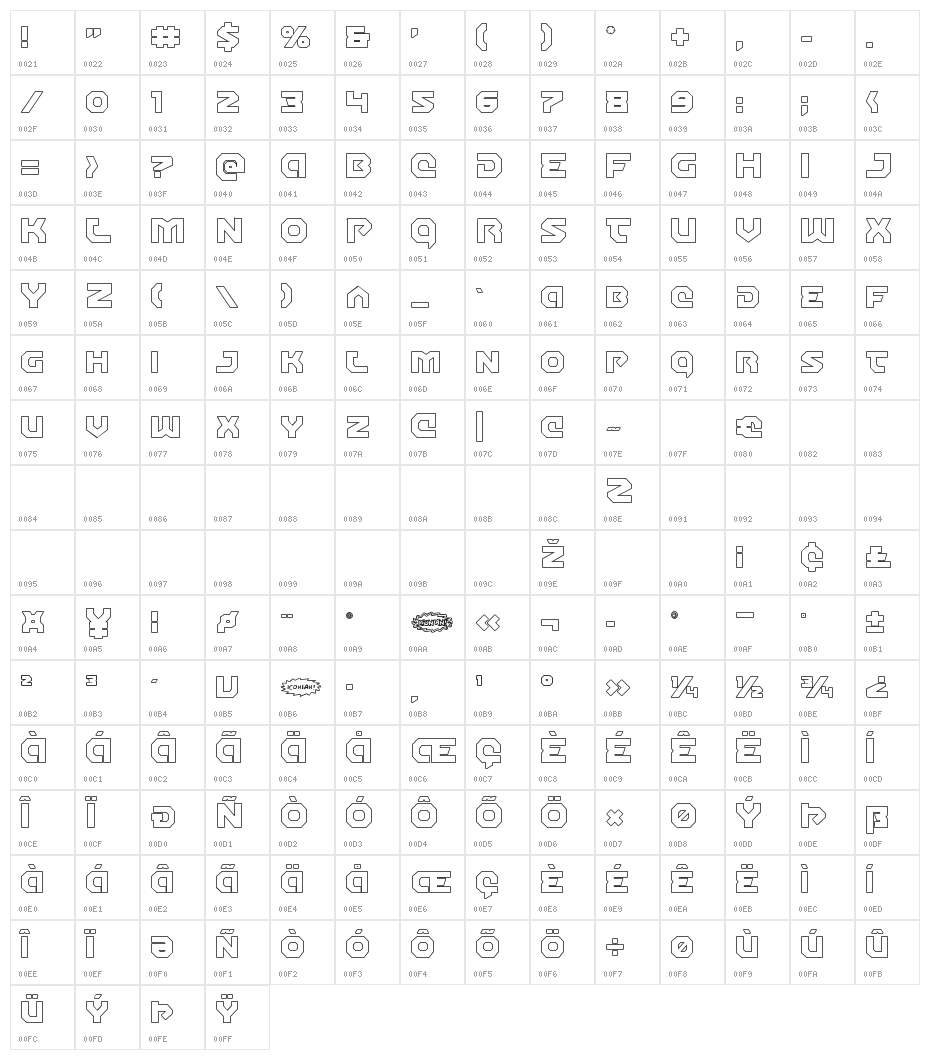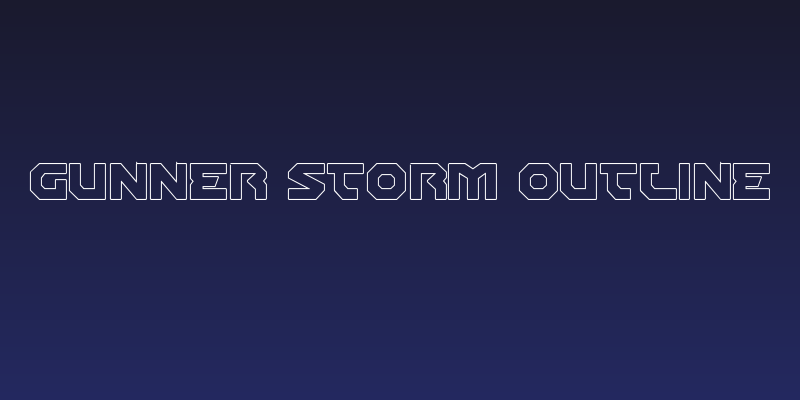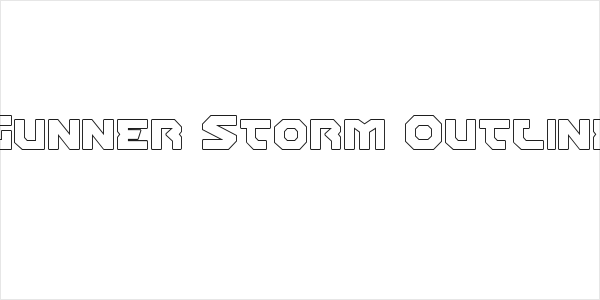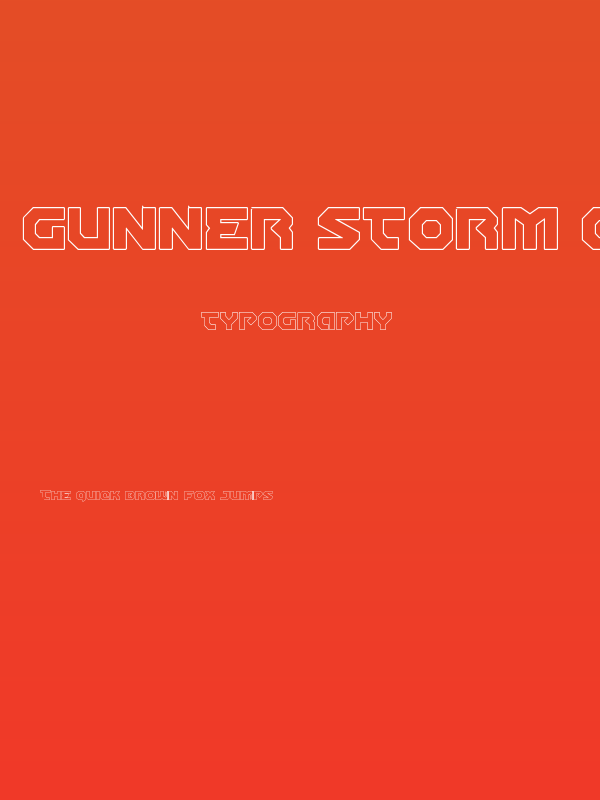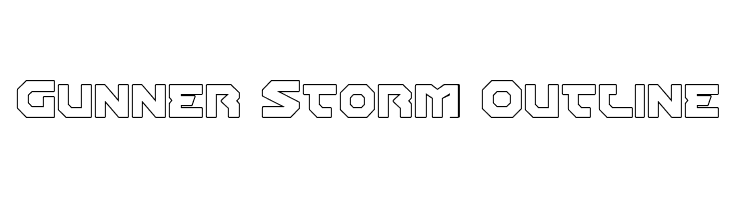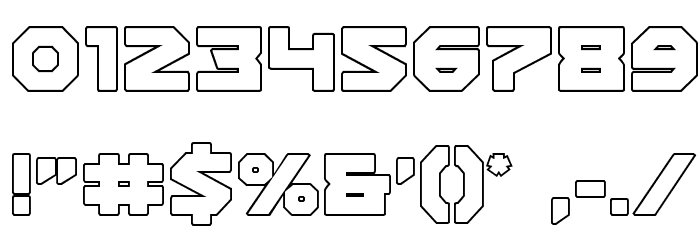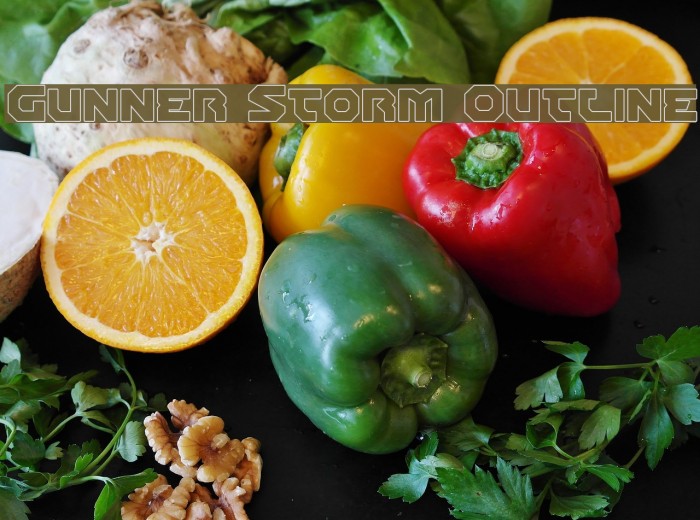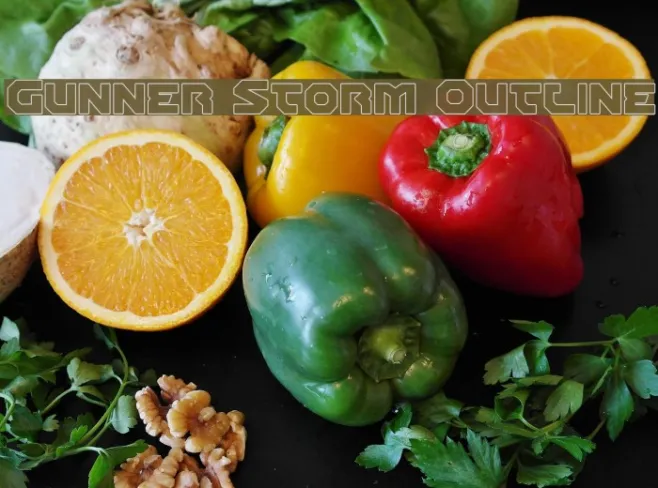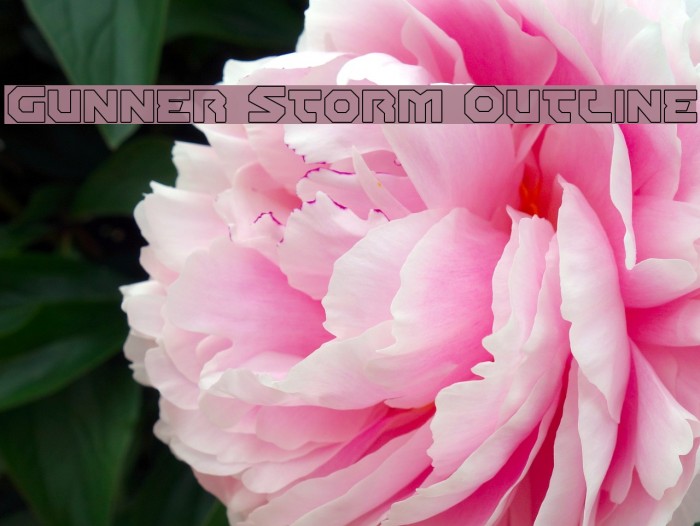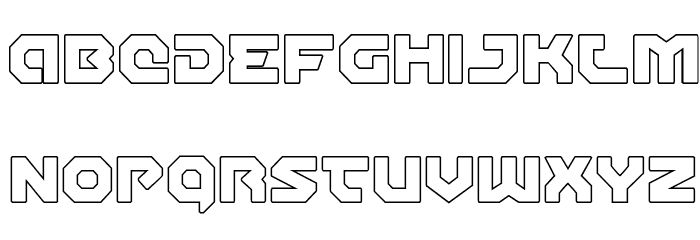
Gunner Storm Outline Font
Gunner Storm Outline Description
This font features a bold, geometric outline style that gives it a futuristic and industrial appearance. The characters are constructed with sharp angles and straight lines, creating a sense of precision and modernity. The uppercase and lowercase letters maintain a consistent width, contributing to a uniform and cohesive look. The numerals and special characters follow the same design principles, ensuring a harmonious overall aesthetic. The outlined nature of the font adds a unique dimension, making it stand out in various design contexts.
| Proposed Projects | Ideal for technology-themed designs, video game titles, posters, and branding that requires a modern, edgy look. |